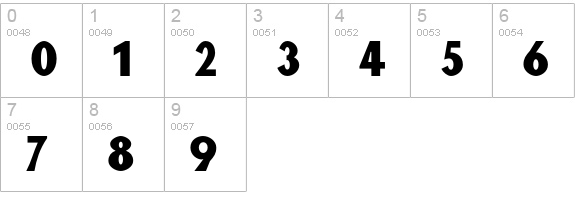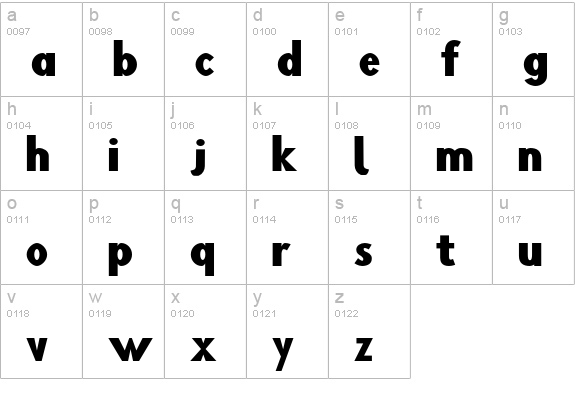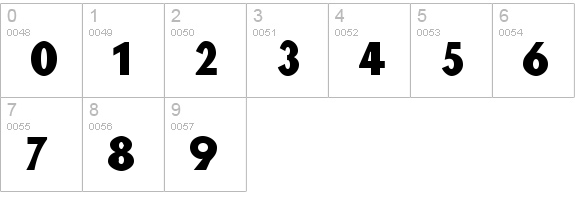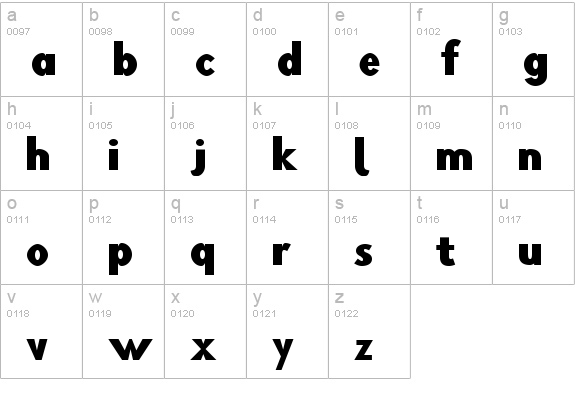
Blink Wide Font Details
Blink Wide is a distinctive, extended-width variant in the Blink typeface family \xE2\x80\x94 well suited to design and typography projects.
Introducing Blink Wide font, a visually stunning typeface that effortlessly combines modernity with elegance. With its bold, wide letterforms, Blink Wide exudes confidence and sophistication, making it the perfect choice for eye-catching headlines, logos, and branding projects. This versatile font captures attention with its clean lines and distinct character shapes, creating a strong visual impact that commands the viewer's attention. Its generous letter spacing and bold strokes give Blink Wide a sense of boldness and personality, while maintaining readability and legibility across various mediums. What sets Blink Wide font apart is not just its striking aesthetics, but also its accessibility. We are delighted to inform you that Blink Wide font is available for free download at FontsMarket.com. This means that designers, creatives, and typophiles alike can effortlessly access and utilize this exceptional typeface in their projects without any cost. Whether you are designing a modern website, crafting a captivating advertisement, or creating a standout social media post, Blink Wide font is the perfect companion to elevate your designs. Its versatility and boldness enable you to make a lasting impression, capturing the essence of your message with clarity and style. So why wait? Make a bold statement with Blink Wide font today. Download it for free at FontsMarket.com and unlock a world of creative possibilities.